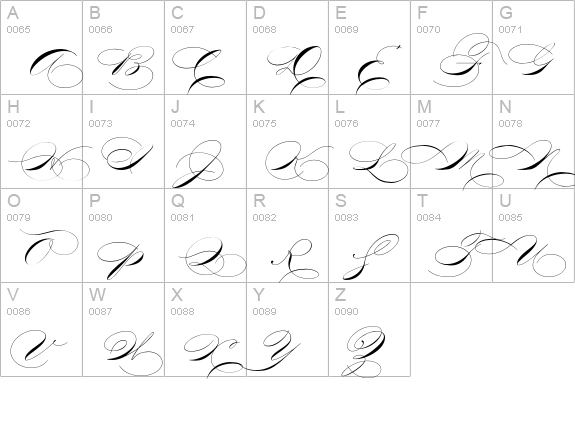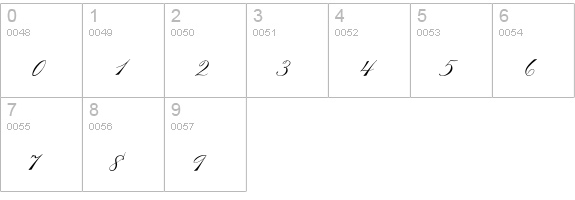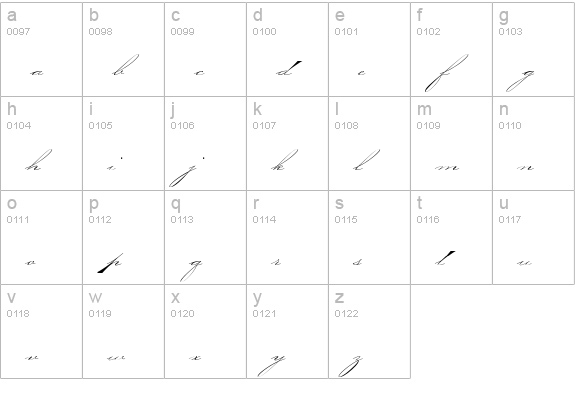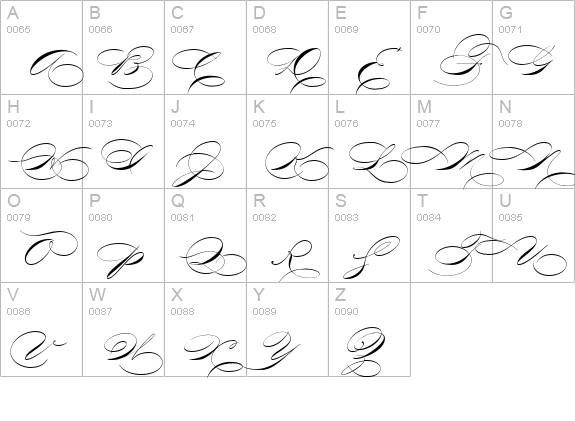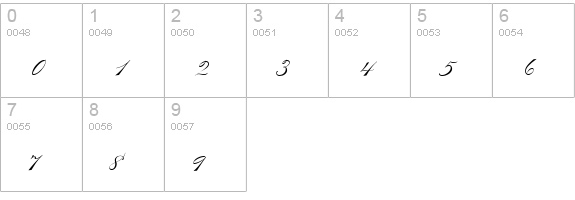
P22ZanerThree font beautifully combines the elegance of calligraphy with a modern twist, making it a versatile and eye-catching choice for a wide range of design projects. With its flowing lines and unique flourishes, this font exudes a sense of sophistication and creativity. Perfect for invitations, logos, branding, and more, P22ZanerThree adds a touch of elegance to any design. What sets P22ZanerThree apart is that it is not only visually stunning but also completely free to download at FontsMarket.com. This means that you can enhance your projects with this exquisite font without any cost, making it an ideal choice for designers looking to elevate their work without breaking the bank. Download P22ZanerThree today and unleash your creativity with this captivating and versatile font.